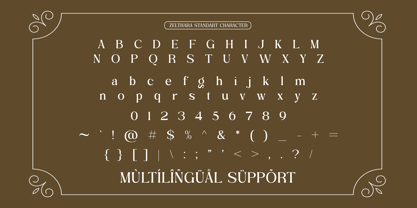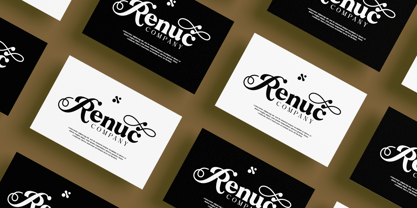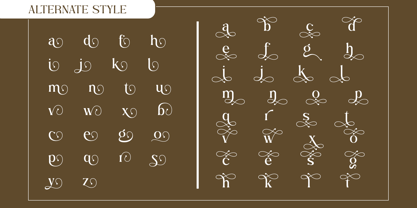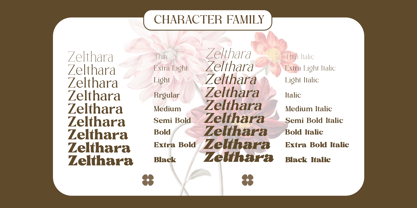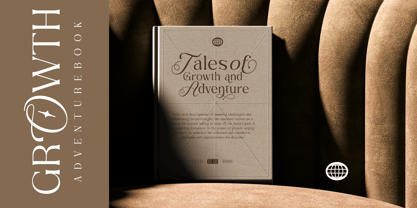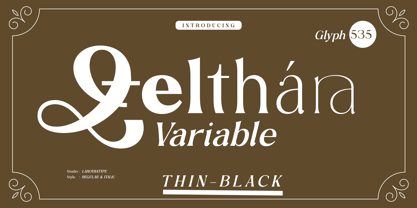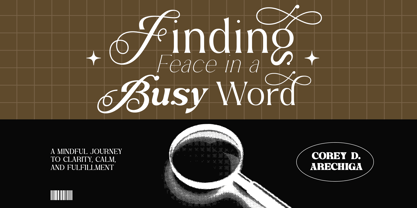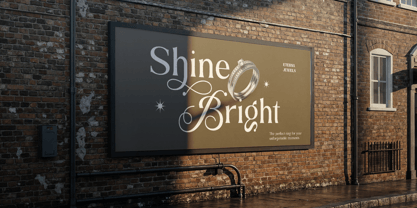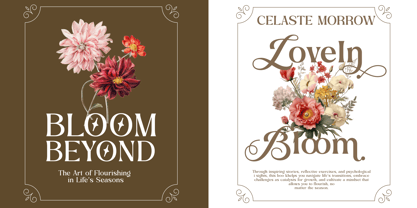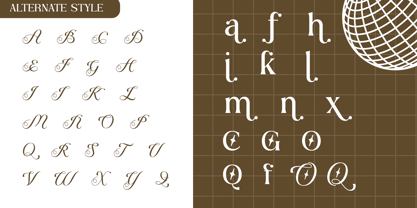
Zelthara Variable
by Laroyba Type
The Zelthara Variable Font Family was designed by Habib Abdur Rofi and published by Laroyba Type. Zelthara Variable contains 2 styles and family package options. More about this family
Zelthara Variable – Modern Elegant Sans Serif Zelthara Variable is the advanced evolution of the Zelthara family — designed for designers who demand precision, flexibility, and refined control in one powerful font file. Built with seamless weight interpolation, Zelthara Variable allows smooth transitions across the entire weight spectrum, giving you complete freedom to fine-tune typography for both print and digital environments. From delicate thin styles to bold commanding statements, every adjustment maintains Zelthara’s signature elegance and clarity. This variable version is crafted for modern branding systems, responsive web design, and high-end visual identities that require adaptability without compromising sophistication. Whether you’re designing luxury logos, editorial layouts, fashion campaigns, premium packaging, or dynamic digital interfaces, Zelthara Variable delivers fluid performance with timeless refinement. Why Choose Zelthara Variable? • Continuous weight control in a single font file • Perfect for responsive branding & web typography • Smooth interpolation across the full weight range • Elegant proportions with modern minimalism • Professional alternates & ligatures included • Multilingual support Zelthara Variable is more than flexibility — it’s typographic precision redefined for contemporary design systems.
Designers: Habib Abdur Rofi
Foundry: Laroyba Type